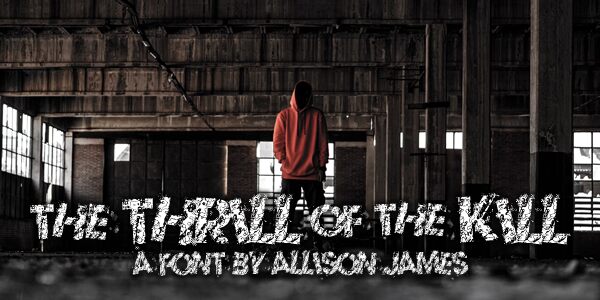
The Thrill Of The Kill
The Thrill Of The Kill is a bold, distorted display font that commands attention. Inspired by grunge aesthetics, its rugged, textured letterforms evoke a sense of raw power and intensity. The irregular, jagged edges and fragmented appearance lend the font a gritty, post-apocalyptic vibe, perfect for commanding emphasis in headlines, logos, and editorial layouts.
This font's unique character shines when used for impactful messaging, whether in the realms of heavy metal, horror, or urban-inspired design. Its striking visual impact makes it a versatile choice for projects seeking to convey a sense of edgy, high-octane energy.